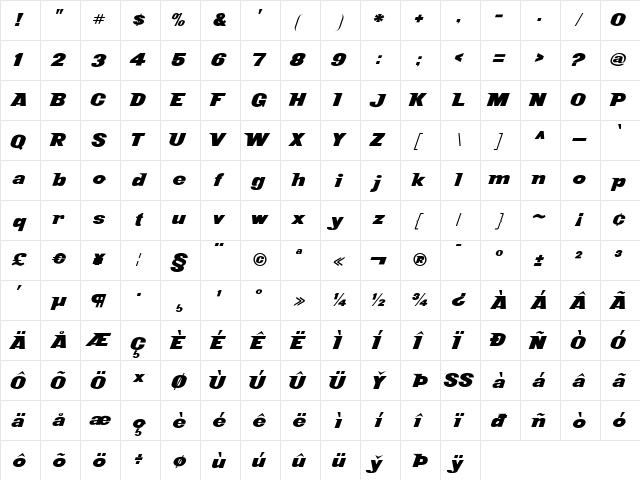
NewYorktoLasVegas Regular
NewYorktoLasVegas takes a measured approach to typography — its balanced proportions and neutral character make it a reliable workhorse for both digital and print work.